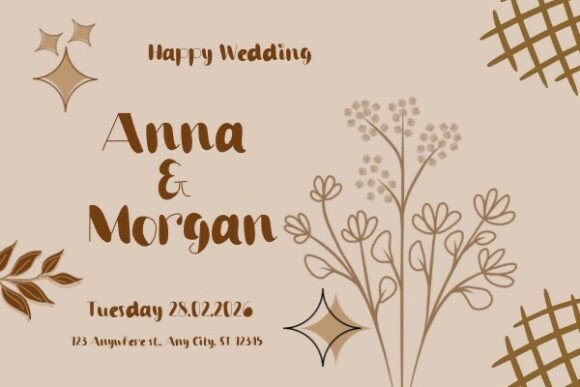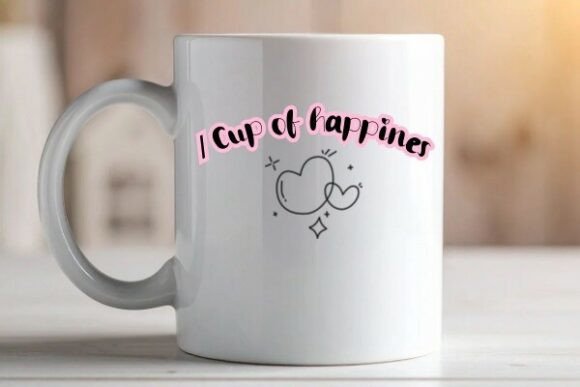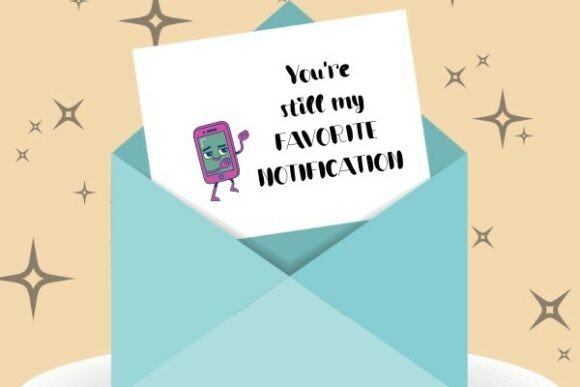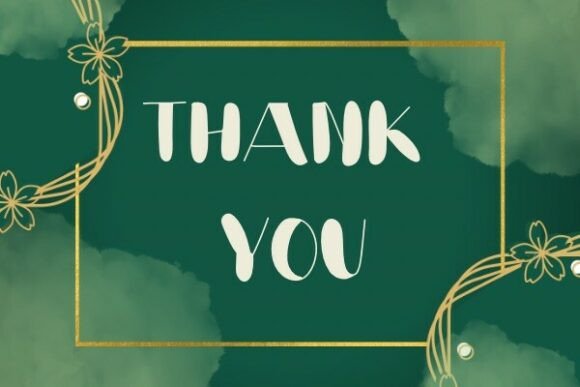
Introduction to Orion Font
Have you ever stared at a blank canvas, feeling the weight of a creative project on your shoulders? The cursor blinks, and you’re left wondering where to begin. But then, something magical happens – you stumble upon the perfect font. For designers, finding that elusive combination of style and substance can be a game-changer. And that’s exactly what the Orion Font offers.
With its unique hand-lettered design, the Orion Font effortlessly elevates any creative project. Whether you’re working on a high-quality design resource or simply need a free download to spice up your next project, this font is a valuable addition to your toolkit. Its unparalleled versatility and transparent background make it a dream to work with, allowing you to focus on bringing your vision to life.
From T-shirt graphics to greeting cards, the Orion Font’s charisma and creativity shine through, making it a go-to choice for designers looking to add a personal touch to their work.
Key Features of Orion Font
- Features a high-resolution design, ensuring crisp and clear text even at large sizes.
- Unique, modern design aesthetic that sets it apart from other fonts in its class.
- Perfect for use in logos, branding materials, and other creative projects where a distinctive font is required.
Honest Review: Orion Font
I recently stumbled upon the Orion Font while searching for a reliable design resource, and I must say it’s been a great addition to my creative project. One of the standout features of this font is its high quality, making it perfect for any project that requires a professional touch.
Here are some of the things that work well with the Orion Font:
- High-quality glyphs and characters
- Great for headings, titles, and body text
- Not as wide a character set as some other fonts
Overall, I’m impressed with the Orion Font. It’s a great choice for designers who want a high-quality font without breaking the bank. While it may have some limitations, the benefits far outweigh the drawbacks.
The Orion Font is a transparent background font, making it ideal for use in graphics and designs where a clear background is required. Some common use cases for the Orion Font include creating logos, graphics, and social media posts. To get the most out of the Orion Font, experiment with different font sizes and styles to find the perfect combination for your design project.
The Great Vibes Font is a high-quality, elegant script font that is perfect for creative projects requiring a touch of sophistication. It is available for free download and can be used for both personal and commercial purposes. When to use: wedding invitations, greeting cards, or any design that needs a classic yet modern feel. Comparison to Orion Font: Great Vibes Font is more elegant and refined compared to the bold, futuristic feel of Orion Font.
The Alex Brush Font is a beautiful, handwritten font that is ideal for designers looking for a unique and creative design resource. It is available for free download and can be used for a variety of projects, including logos, branding, and packaging. When to use: packaging design, logo design, or any project that needs a personal touch. Comparison to Orion Font: Alex Brush Font is more delicate and intricate compared to the bold, geometric feel of Orion Font.
Yes, the Orion Font includes a transparent background option. This allows you to use the font with a transparent background in your design, making it perfect for creating stunning visual effects and compositions.
Q: Is the Orion Font suitable for high-quality printing?
Yes, the Orion Font is designed to be high-quality and suitable for printing. It’s optimized for use in various printing applications, including business cards, brochures, and posters. The font’s crisp and clear lines ensure that your text and designs look great in print.